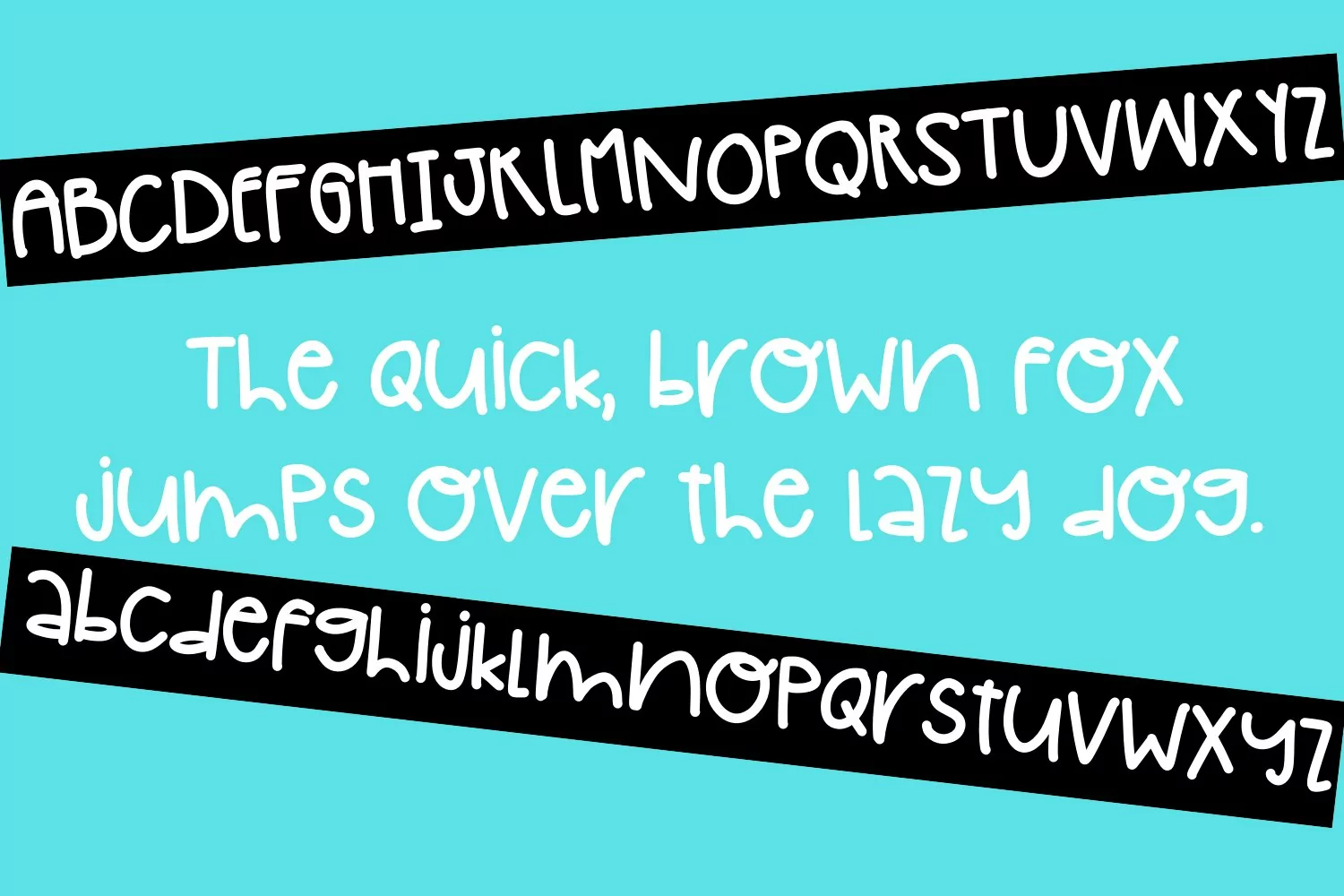
Lazy dog is a cute & quirky childlike font that is perfect for so many design projects! It is smooth enough to use with Cricut and Silhouette and it's bursting with handwritten charm and personality!